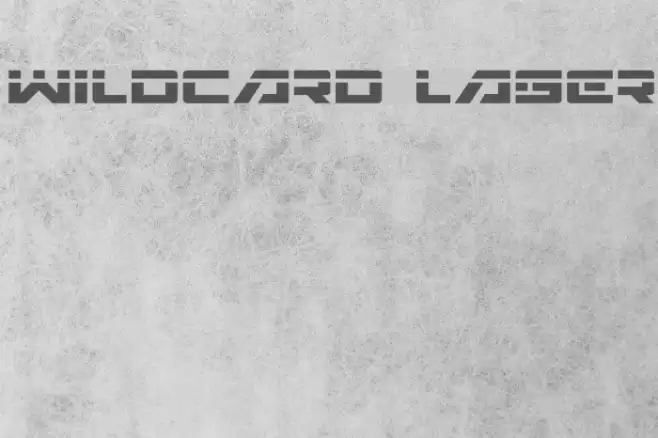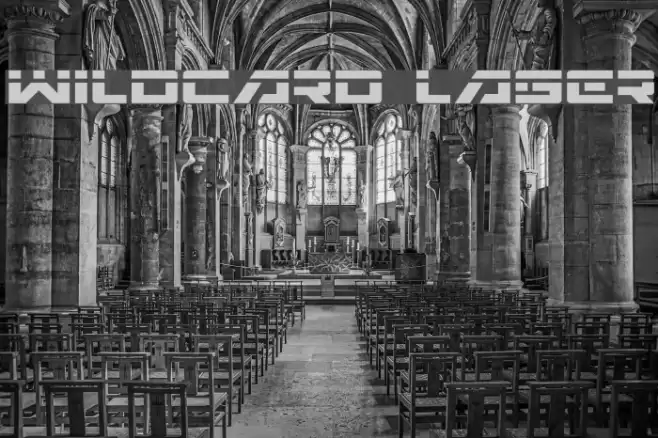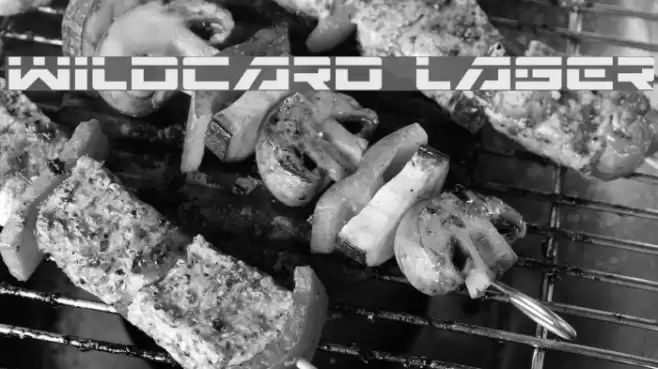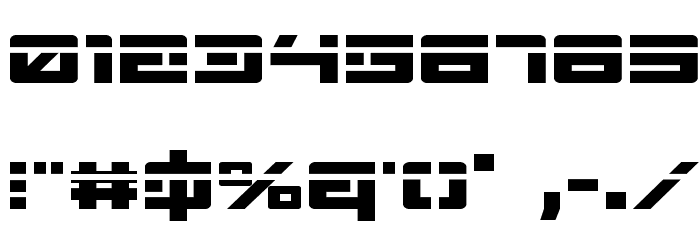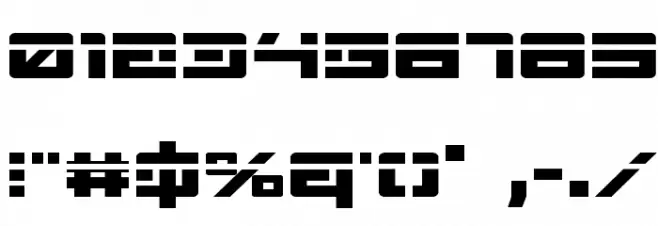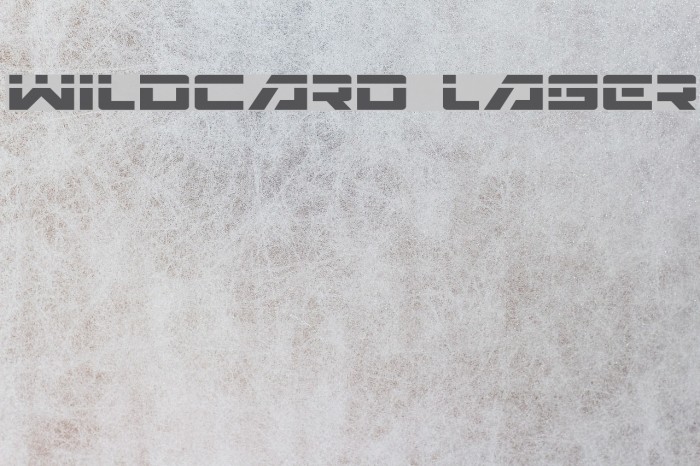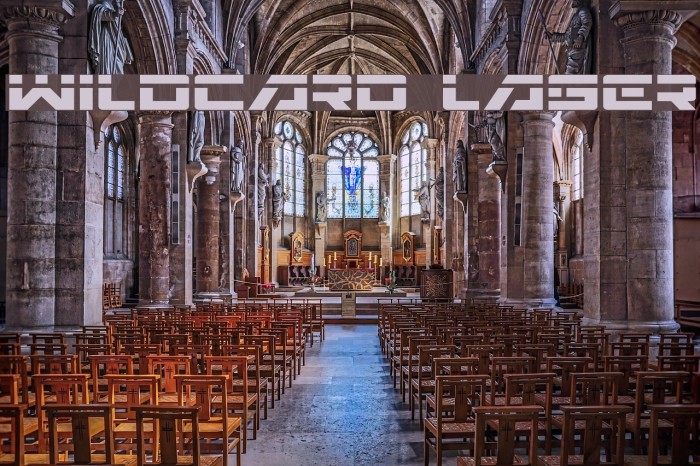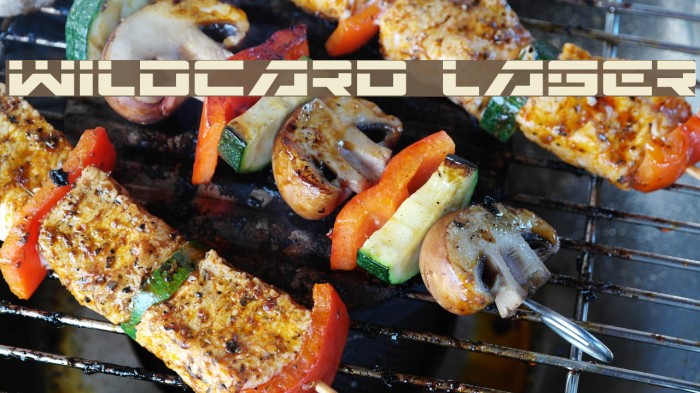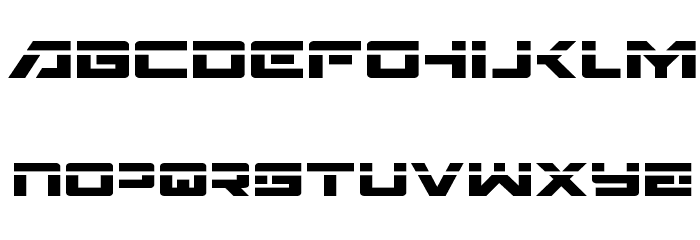
Wildcard Laser Font
Wildcard Laser Description
This font features a bold, futuristic design with geometric shapes and sharp angles. The characters are constructed with a stencil-like appearance, giving them a mechanical and industrial feel. The uppercase letters are uniform in height, while the lowercase letters maintain a consistent style that complements the uppercase. Numbers and special characters follow the same design principles, ensuring a cohesive look across all elements. The font's unique style makes it stand out, ideal for projects that require a modern and edgy aesthetic.
A bold, futuristic font with geometric shapes and a stencil-like appearance from Uncategorized fonts.
- Proposed Projects: Ideal for sci-fi themed designs, video game graphics, tech branding, and futuristic posters.